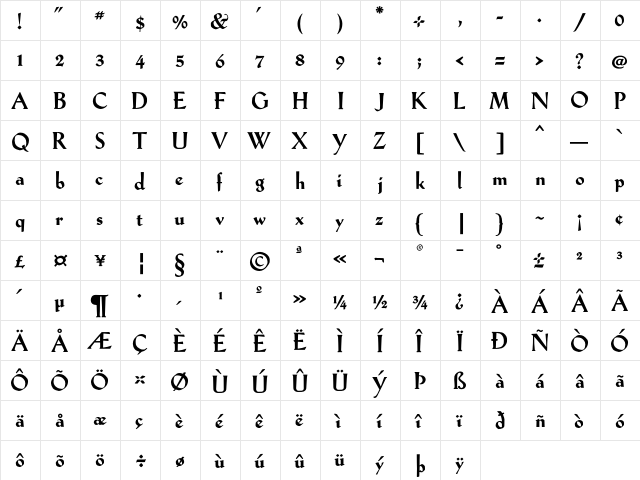
Eva Regular
Design Context for Eva Typeface
Eva offers clean, dependable letterforms without strong stylistic allegiance, making it a practical choice for designers who need flexibility.